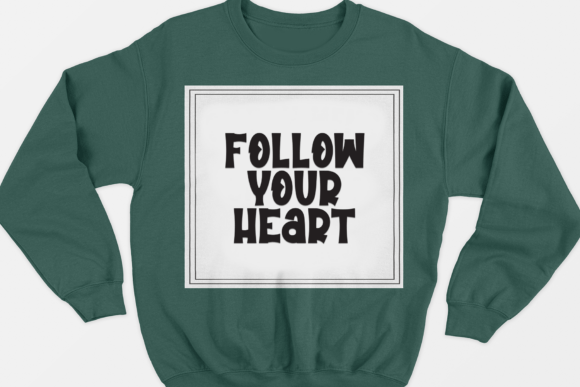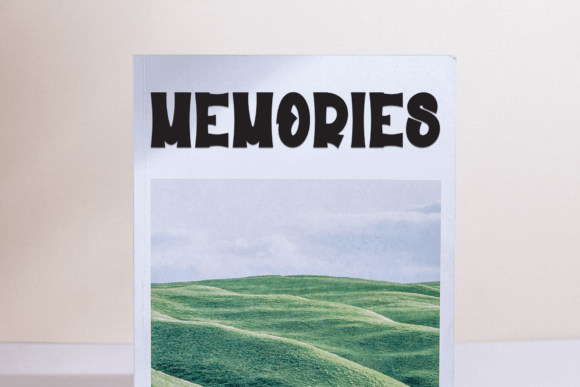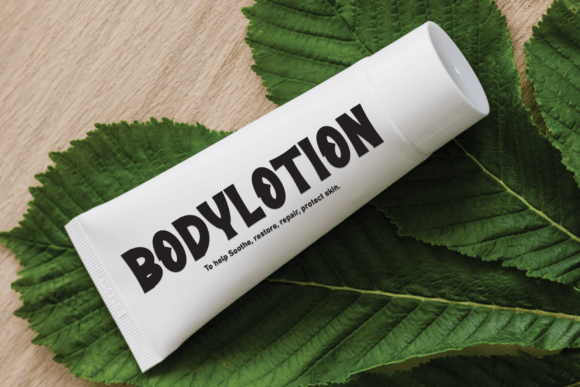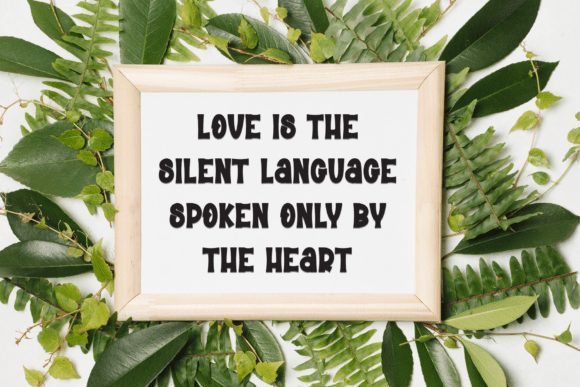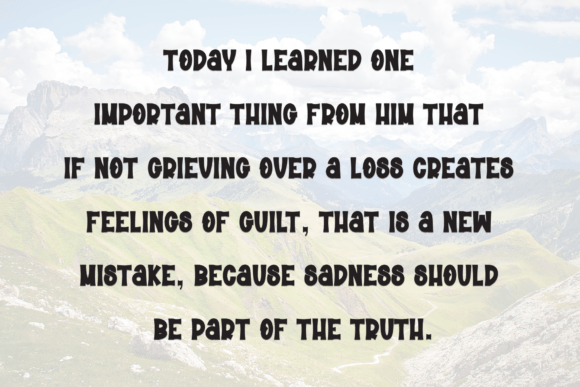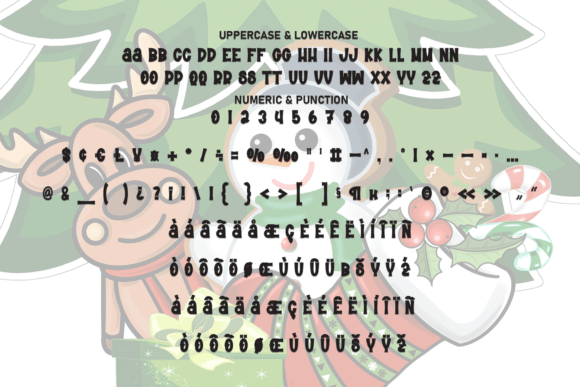
Introducing Christmas Cliparts Font: A Handwriting-Inspired Display Font to Spark Joy
Are you searching for a font that can add a touch of warmth and whimsy to your creative projects? Look no further than Christmas Cliparts Font, a meticulously handwriting-inspired display font designed to evoke the deepest emotions and bring a smile to your face. With its unique essence and enchantingly whimsical style, this font is perfect for wedding invitations, greeting cards, and any artistic endeavors that require a dash of irresistibly warm charm.
The Magic of Handwriting-Inspired Typography
Handwriting-inspired typography has a way of captivating audiences with its personal and emotive qualities. Christmas Cliparts Font takes this concept to the next level with its carefully crafted letters, each penned to unfurl a waterfall of cheerful merriment. The result is a font that exudes a hospitably radiant aura, breathing life into your creative projects and transforming them into something truly special.
Wedding invitations and greeting cards are an excellent way to showcase the beauty of Christmas Cliparts Font. The font’s whimsical style and warm charm make it an ideal choice for couples looking to add a personal touch to their wedding stationery. Similarly, crafters and designers can use this font to create unique and eye-catching greeting cards that are sure to delight recipients.
Bringing Life to Creative Projects
Christmas Cliparts Font is more than just a font – it’s a creative tool that can help bring your artistic endeavors to life. Whether you’re working on a DIY project, crafting a handmade gift, or designing a brand identity, this font can add a touch of magic to your work. With its highly legible and versatile design, you can use Christmas Cliparts Font across a wide range of applications, from digital media to print materials.
Key Features of Christmas Cliparts Font
- Handwriting-inspired design: Each letter is carefully crafted to evoke a sense of warmth and whimsy.
- Unique essence: The font’s distinctive style sets it apart from other display fonts.
- Highly legible: The font is designed to be easy to read, making it perfect for a wide range of applications.
- Versatile: Use Christmas Cliparts Font across various media, from digital to print.
Tips for Using Christmas Cliparts Font
To get the most out of Christmas Cliparts Font, here are some tips to keep in mind:
- Experiment with sizes and colors: The font’s versatility allows you to play with different sizes and colors to achieve the desired effect.
- Pair with complementary fonts: Combine Christmas Cliparts Font with other fonts to create a unique and visually appealing typography.
- Use in combination with graphics: The font’s whimsical style pairs well with illustrations and graphics, making it perfect for crafters and designers.
Christmas Cliparts Font is a handwriting-inspired display font that can add a touch of warmth and whimsy to your creative projects. With its unique essence and enchantingly whimsical style, this font is perfect for wedding invitations, greeting cards, and any artistic endeavors that require a dash of irresistibly warm charm. So why wait? Download Christmas Cliparts Font today and experience the transformative power of this magical font!